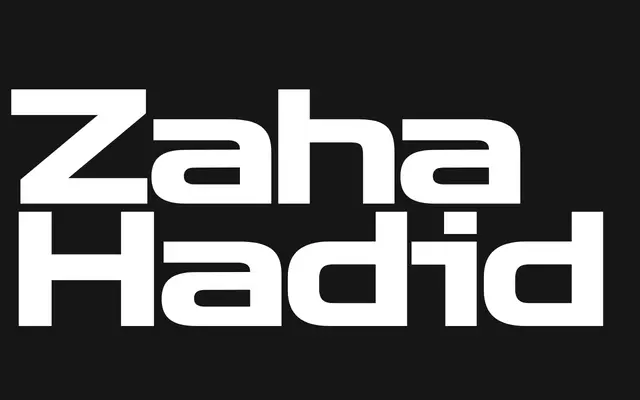
Oddity
Newglyph · Ian Party
A variable neo-grotesque by Ian Party offering 132 styles across weight and width axes with broad Latin language coverage.
Designed by Ian Party and released through Newglyph, Oddity draws on neo-grotesque conventions to produce a clean, neutral sans-serif in 132 static styles plus a variable font spanning weight, width and italic axes. The character set covers 427 glyphs per style, including extended Latin accented characters, ligatures, stylistic alternates for several letters including R, e, r and y, and a full range of mathematical symbols. Language support stretches across a large number of Latin-script languages from Afrikaans and Catalan to Swahili and Zulu.
The foundry explicitly describes Oddity as incorporating neo-grotesque principles, and the glyph set and variable axis structure are consistent with a modern neo-grotesque sans-serif.